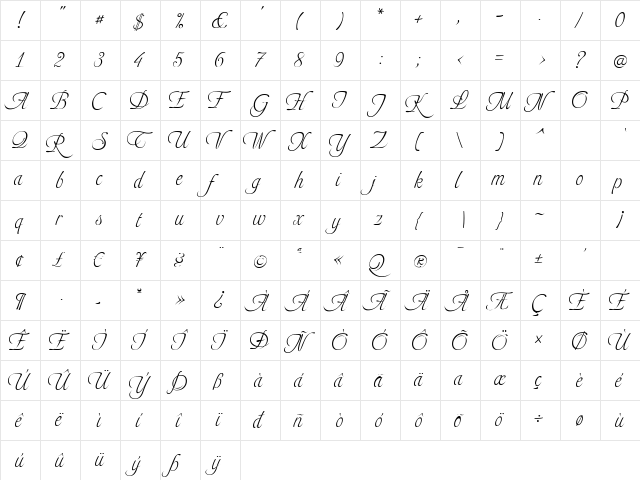
Marnie Regular Regular
Design Context for Marnie Regular Typeface
Marnie Regular is a composed and adaptable typeface that performs quietly and consistently across a wide range of design contexts.